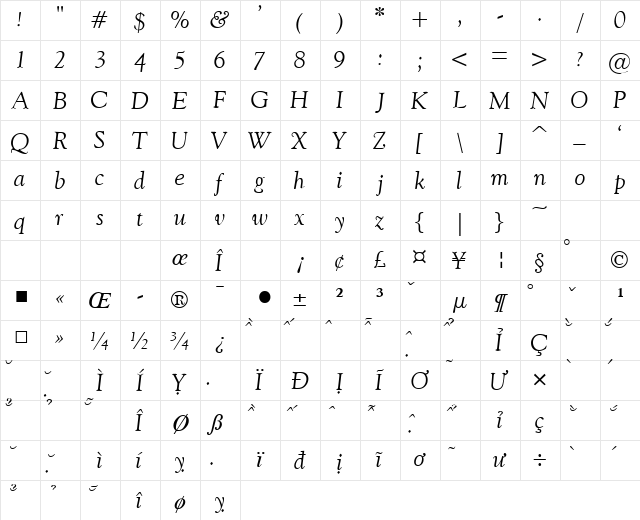
VNI-Goudy Italic Font Preview
VNI-Goudy Italic
Design Context for VNI-Goudy Typeface
VNI-Goudy is a composed and adaptable typeface that performs quietly and consistently across a wide range of design contexts. The dynamic lean of this cut emphasises speed and emphasis in any layout.
Pro Tip: Use VNI-Goudy for emphasis, pull quotes, and subheadings where its slanted energy can add rhythm to the layout.